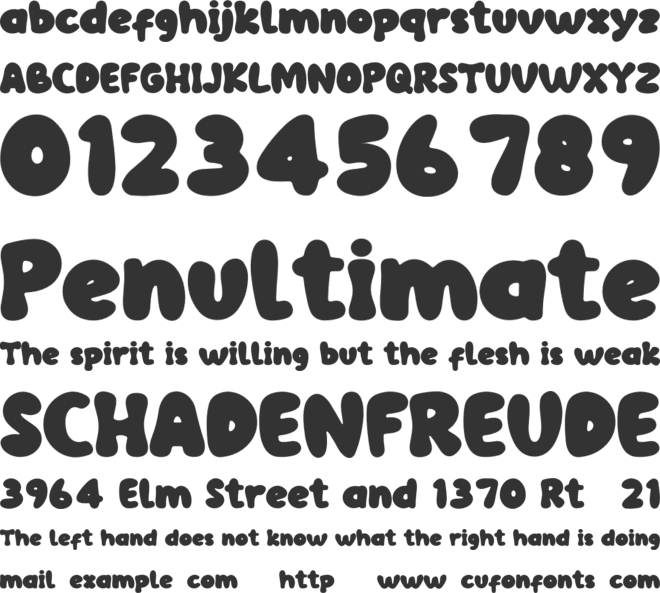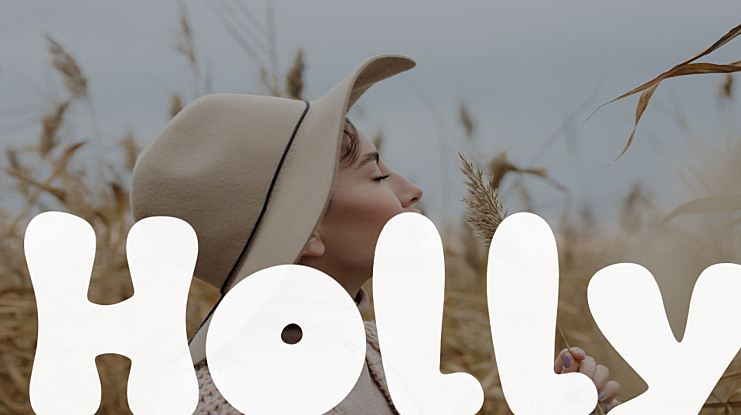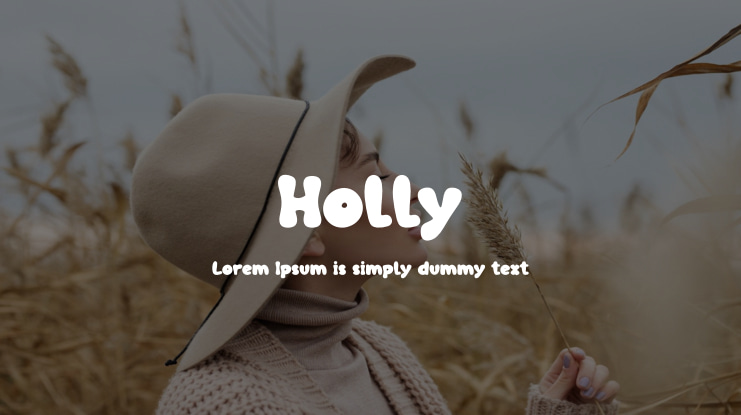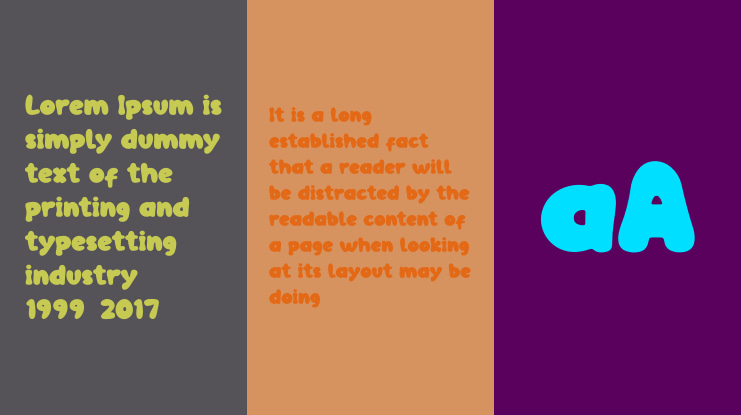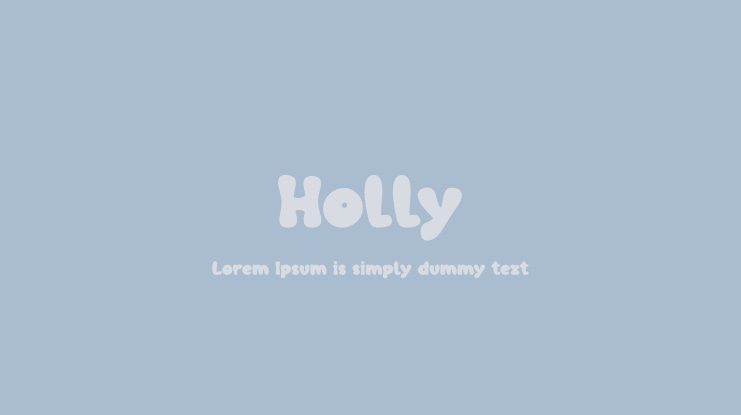
Holly Font
Wahyu Setiya Rahmawan
Looking for a way to make this holiday season more enjoyable? Look no further! Our new Christmas font, Holly, is now available for FREE download. Not only is it fun and festive, but it’s also easy to read. Whether you’re planning a winter party or creating gift cards and labels, this font can help unleash your creativity. So what are you waiting for? Download Holly today and let the holiday spirit take over!
- 5 Styles (Dancer, Comet, Cupid, Donner, Rudolph)
- Basic Latin A-Z and a-z
- Numerals & Punctuation
- Stylistic Ligatures and Alternate Glyphs
- Multilingual Support for ä ö ü Ä Ö Ü …